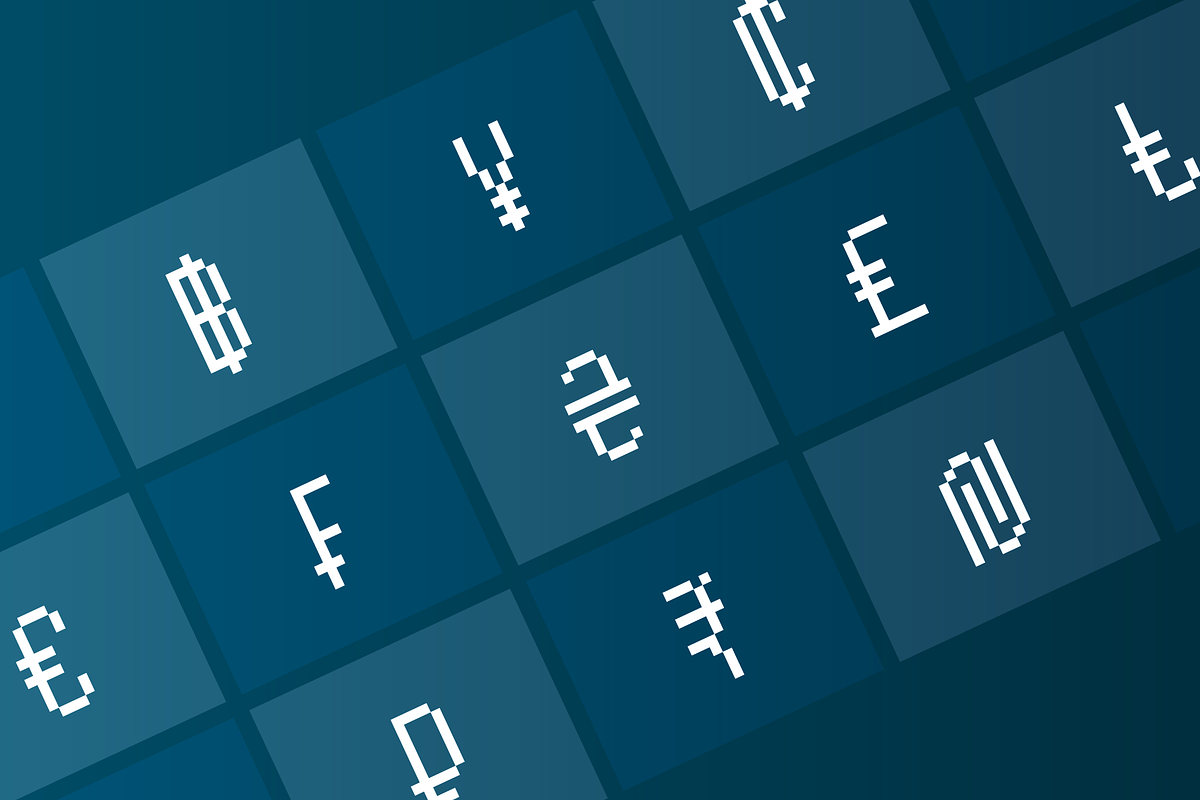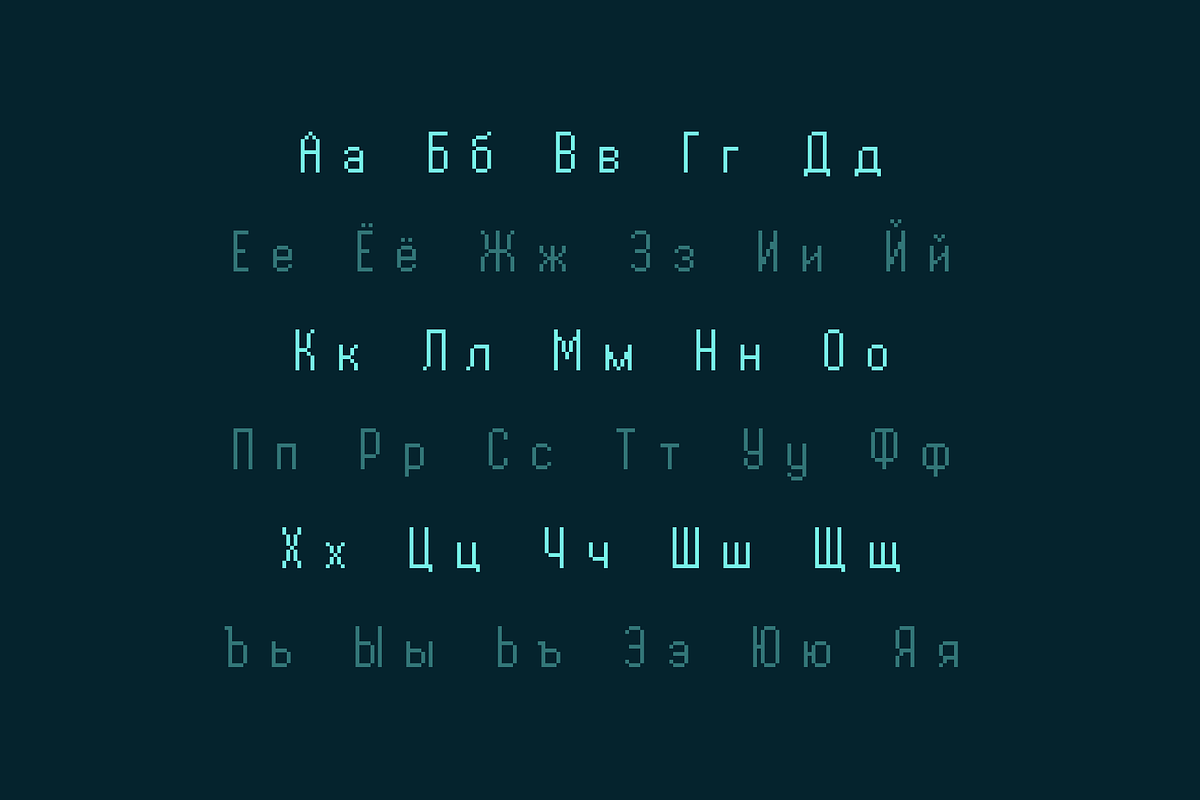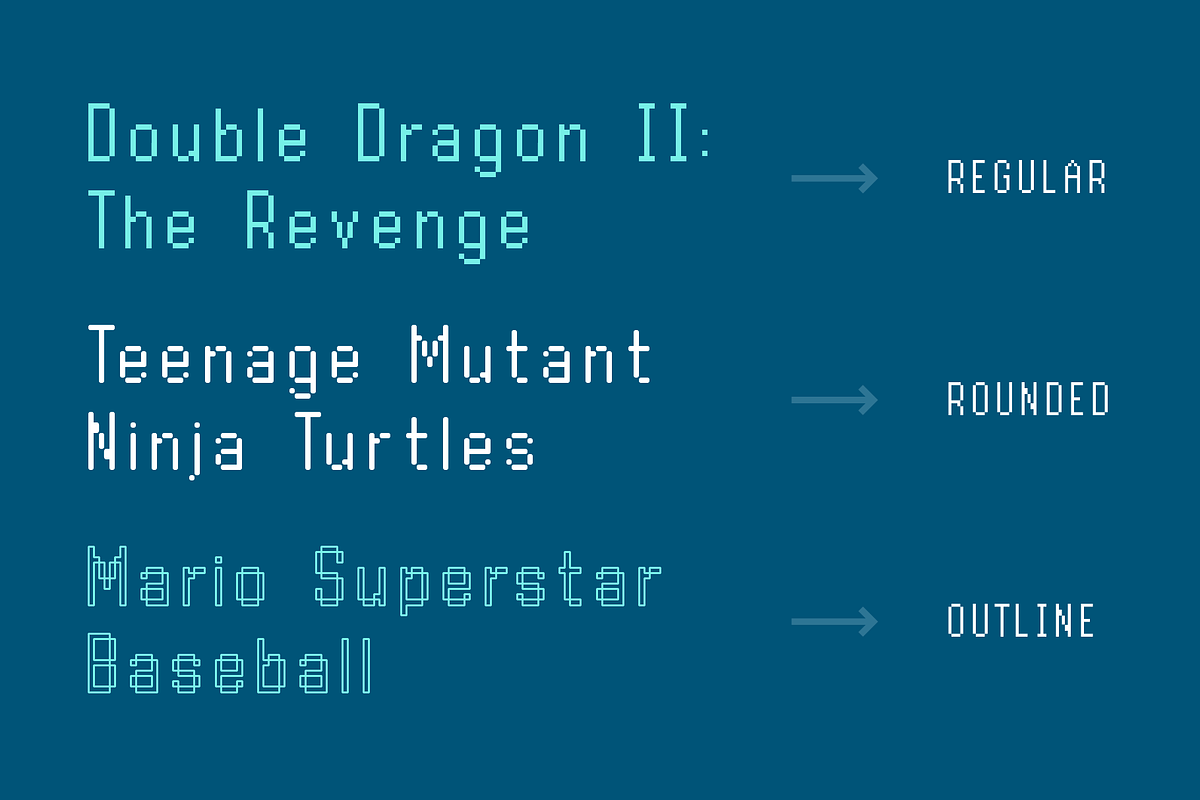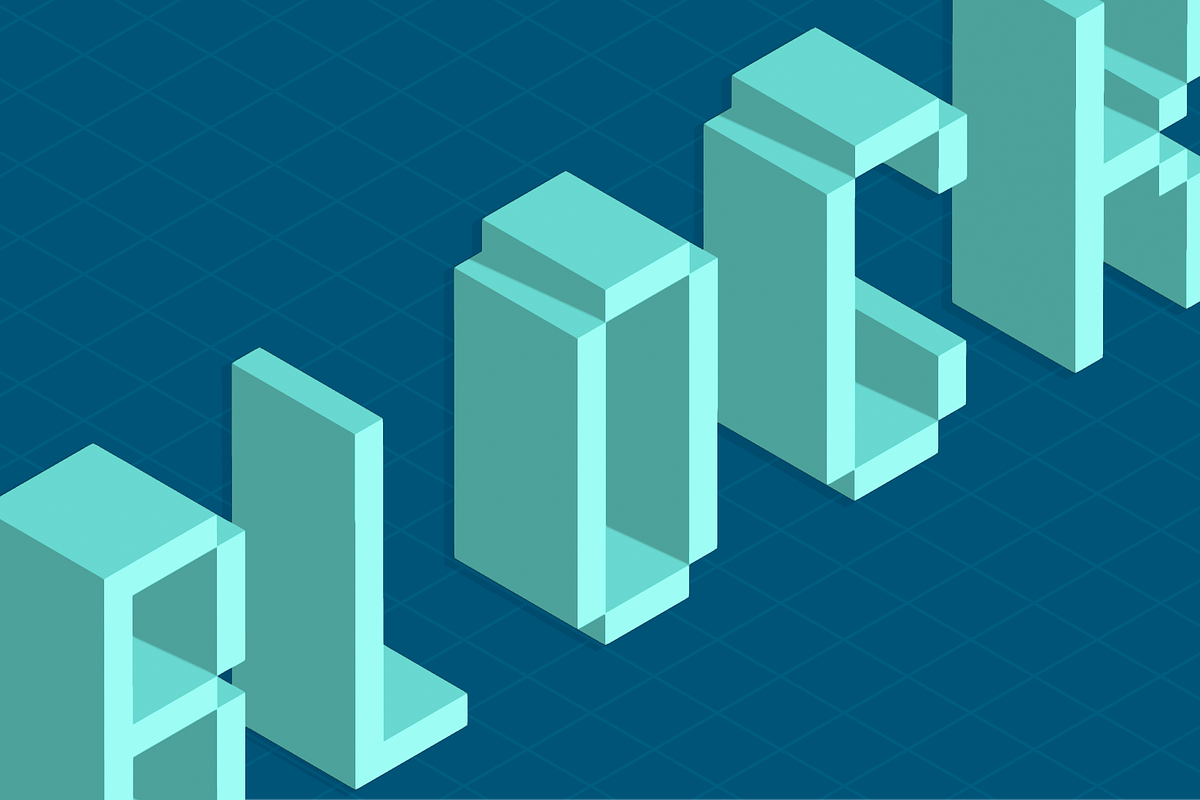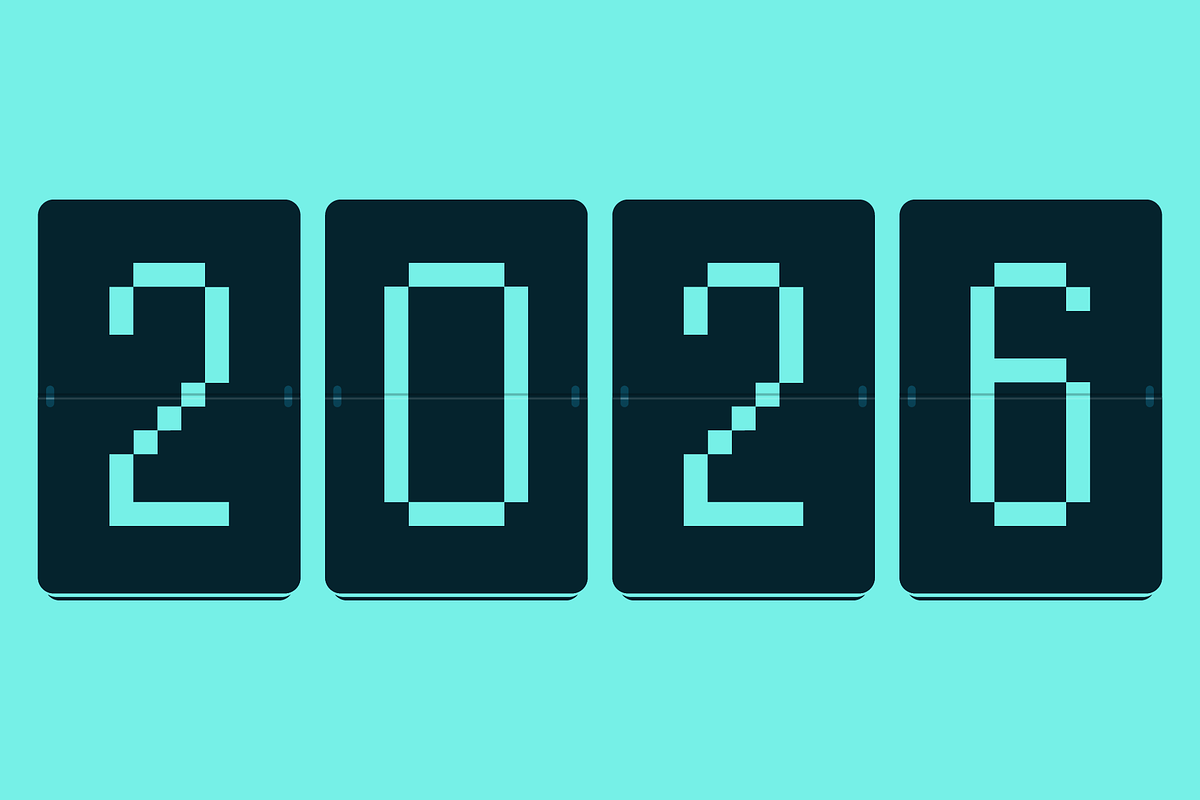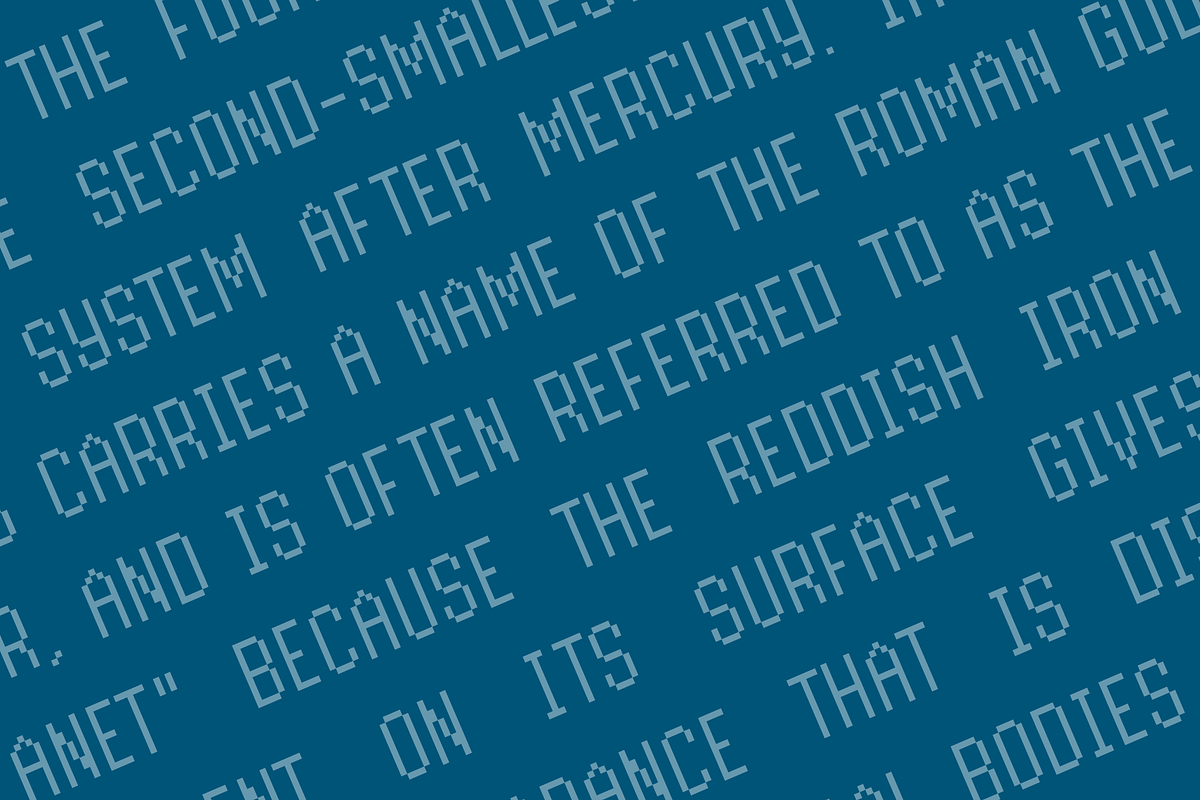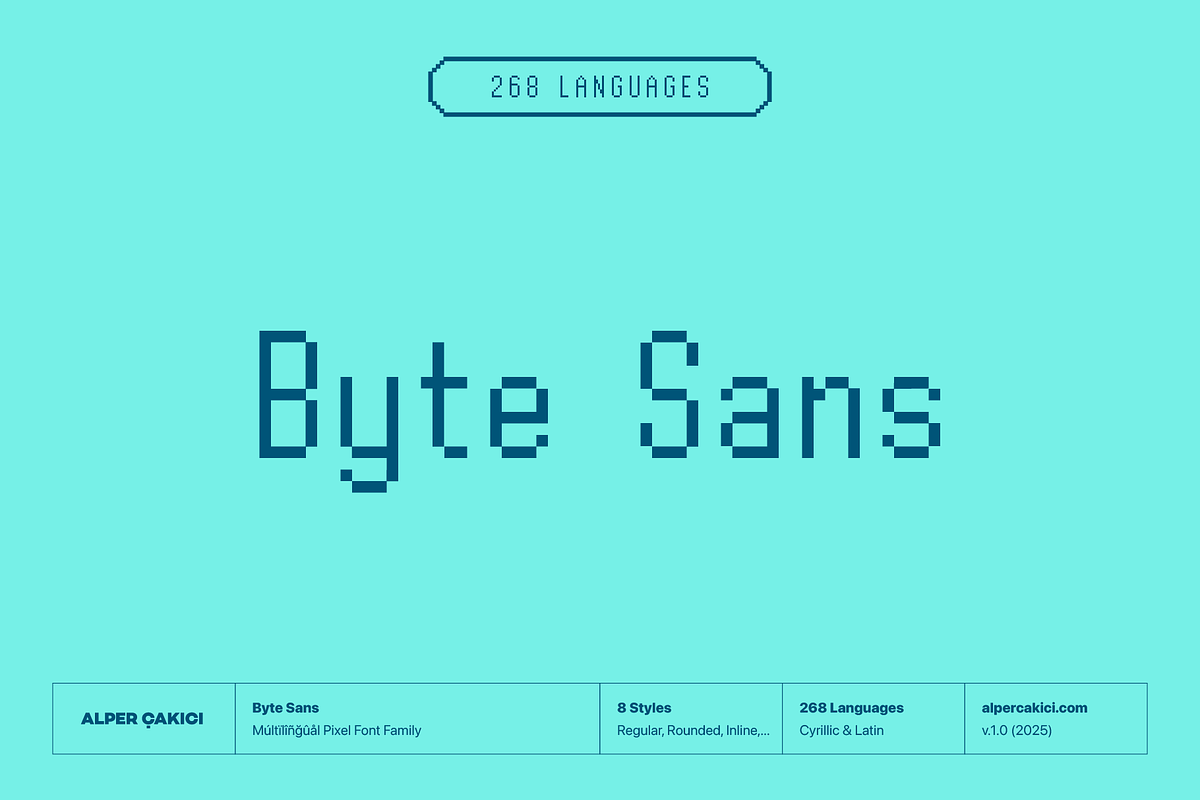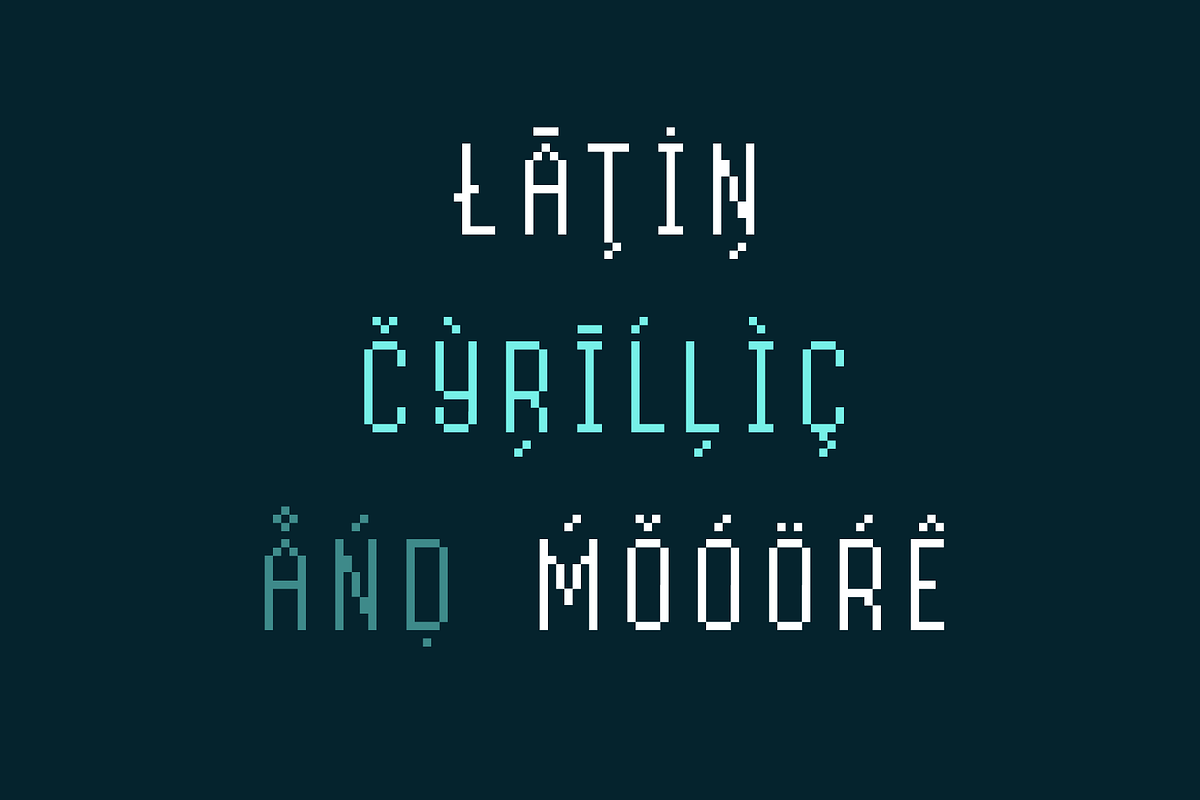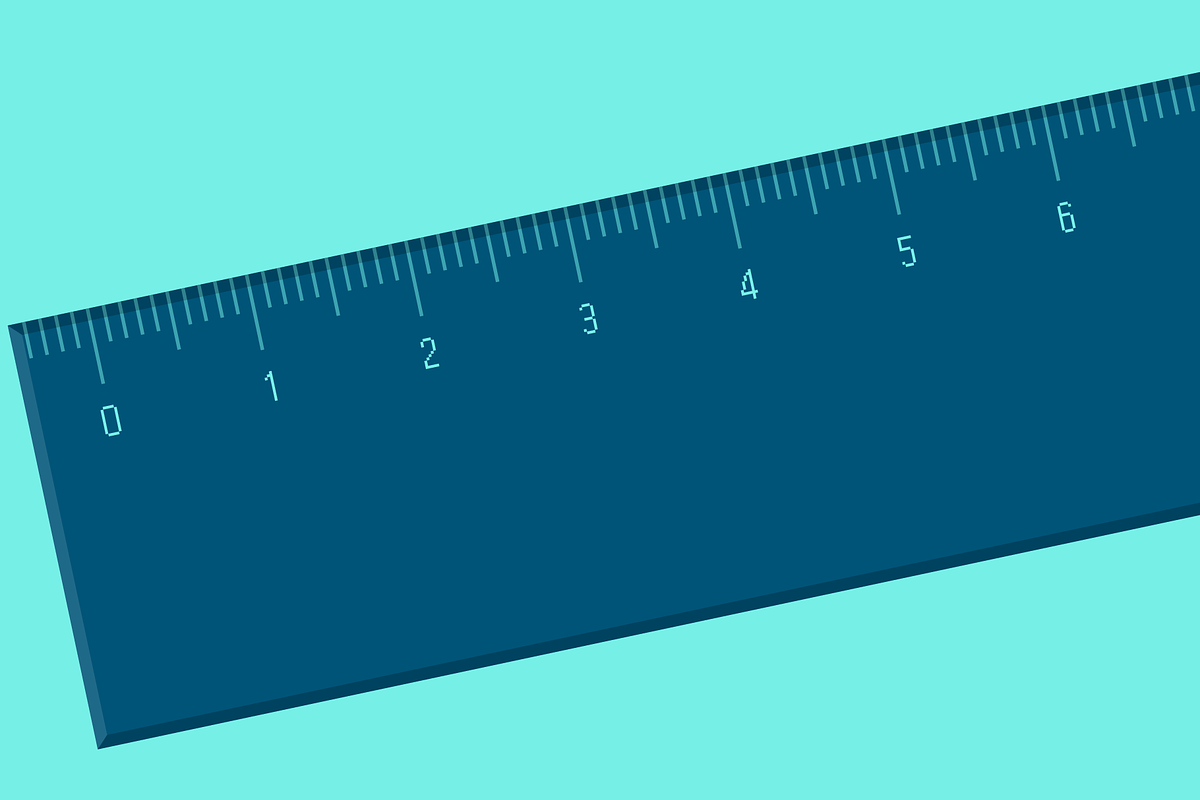
Byte Sans Pixel Font Family
Byte Sans is a tall, grid-built pixel typeface crafted for games, UI, and retro-inspired design. Drawing from the sharp charm of 8-bit, 16-bit, and PS1-era visuals, it's perfect for splash screens, scoreboards, dialogue boxes, menus, and in-game interfaces.
With 8 styles — Regular, Inline, Rounded, Outline, Outline Rounded, Inline Rounded, Shadow, and Shadow Rounded — Byte Sans gives you full creative flexibility across genres and moods. Built with pixel-perfect geometry, Byte Sans ensures clarity at every size and supports 268 Latin + Cyrillic languages, including Russian, Ukrainian, Turkish, and more.
💡 Why Byte Sans?
🎮 Game-Ready – Built on a pixel grid for crisp, screen-perfect rendering
🌍 Global Reach – Supports 268 languages (Latin & Cyrillic scripts)
🧩 Flexible Styles – 8 pixel variations for logos, HUDs, UIs & titles
💾 Optimized Clarity – Readable from tiny captions to large headers
🕹️ Retro Energy – Inspired by NES, SNES, PS1, and pixel art aesthetics
Use Cases: Games, pixel UIs, HUDs, scores, branding
Grid System: Modular pixel grid
Byte Sans covers 268 languages, including English, French, German, Russian, Ukrainian, Turkish, Polish, and many more — perfect for global game releases and multilingual apps.